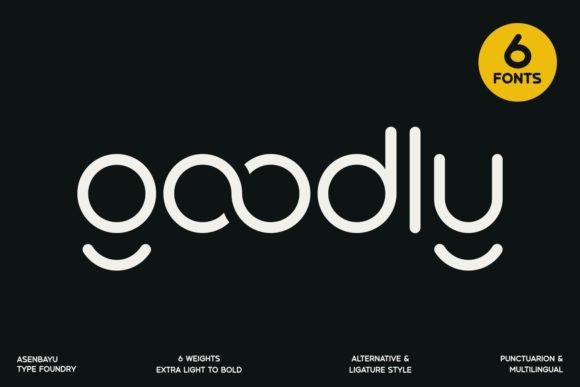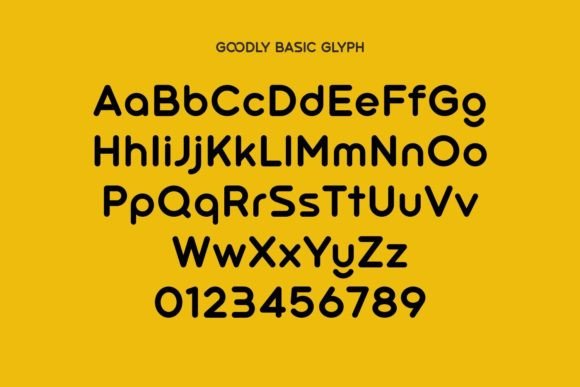
1. Makio Rounded Sans Serif Font
Every time I want to inject an undeniable, friendly punch into a digital product or branding layout, I look for letterforms that strip away cold, sterile geometry. That is exactly why Makio has completely taken over my current inspiration boards. This incredible rounded sans serif font masterfully balances a massive visual presence with a remarkably soft, approachable character. The standout advantage of this typeface lies in its heavy, plump vertical blocks and perfectly pillowed corners. It gives your main display headers an incredibly solid, punchy posture, ensuring your text is highly scannable and full of confident, modern energy without looking overly aggressive.
My Recommendation: Use this heavy display typeface for vibrant tech startup branding, bold mobile interfaces, or contemporary packaging. To maximize its punchy visual weight, try setting your text in crisp white directly against a solid, electric blue or saturated neon background. Pairing its thick, tightly packed letter junctions with a clean, low-contrast linear sans for supporting copy creates an exceptional contrast that makes your total interface or print composition look flawlessly curated, professional, and ultra-modern.
2. Ragnir Rounded Sans Serif Font
Whenever a project calls for a massive burst of energy without losing its friendly soul, I look for typefaces that prioritize pure fun. That is exactly why the Ragnir Rounded Sans Serif Font has caught my eye. The core advantage of this vibrant rounded sans serif font lies in its chunky, ultra-bold letterforms mixed with soft curves. It delivers an incredible visual punch without losing flawless readability, giving your headers an expressive personality that instantly commands attention.
My Recommendation: Use this versatile typeface for playful brand identities, gaming graphics, or modern packaging. To unlock its full potential, letting its heavy characters shine by using high-contrast palettes like cream text over a deep purple backdrop is a must. Pairing its thick geometric stems with a minimal linear sans for subtext creates an exceptional visual contrast that keeps your total composition looking curated, professional, and ultra-modern.
3. Goodly Rounded Sans Serif Font
Sometimes, all a layout needs is a smooth geometric flow that perfectly captures that elusive sweet spot between contemporary sleekness and everyday friendliness. That is exactly why the Goodly Rounded Sans Serif Font family has become an asset I frequently return to for my visual concepts. The primary advantage of this incredibly polished rounded sans serif font lies in its clean loop connections and perfectly uniform line distribution. It effortlessly builds an easygoing yet highly professional posture, giving your custom logos and presentation titles a distinct, scannable clarity that instantly removes any harsh or sterile geometric angles.
My Recommendation: Use this six-weight typeface family for trendy product label packaging, creative brand identities, or minimalist posters. To truly let its interlocking contours capture the spotlight, let your main logotypes stand out in crisp white against a clean, deep charcoal or stark black canvas. Utilizing the medium weight for main titles and combining it with a thin weight variation for secondary details creates a gorgeous visual contrast that makes your total design layout look beautifully curated and premium.
4. Stampy Rounded Sans Serif Font
Finding a design asset that can effortlessly strike a balance between structural strength and an earthy, handmade soul is an absolute game-changer for text layouts. That is why the Stampy Rounded Sans Serif Font immediately grabbed a permanent spot in my font collection. The standout advantage of this uniquely textured rounded sans serif font lies in its organic, ink-stamped distressed look paired with two complete sets of alternate characters. These dual sets, combined with clever automatic ligatures for consecutive letters, prevent repetitive texture patterns. This ensures your high-impact titles retain a perfectly imperfect, authentic hand-crafted quality right out of the box.
My Recommendation: Use this weathered, heavy typeface for rugged outdoor product packaging, bold poster titles, or artisan food labels. To fully activate its vintage, tactile charm, try overlaying its pale green or warm neutral tones directly onto deep charcoal or dark, matte backdrops. Pairing these tall, distressed characters with a super-clean, geometric regular sans block below creates an exceptional visual contrast that makes your total display composition look beautifully curated, grounded, and professional.
5. Little Supply Rounded Sans Serif Font
Every single time I map out a brand concept that needs to feel incredibly modern, minimalist, and deeply approachable all at once, I crave letters with true structural clarity. That is exactly why Little Supply has captured my creative eye. The main advantage of this beautifully polished rounded sans serif font lies in its flawless geometric precision mixed with perfectly pillowed corners. It features thick, solid bars and a high x-height that give your headers a tight, highly cohesive visual footprint. It instantly eliminates traditional layout clutter, offering a soft, bold presence that is exceptionally scannable and full of friendly, contemporary energy.